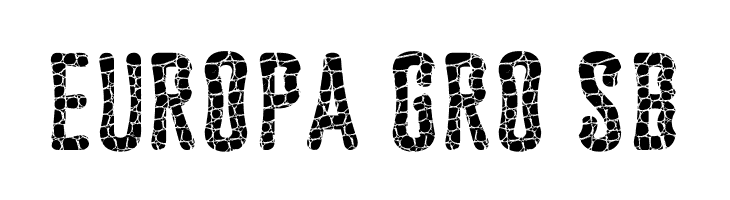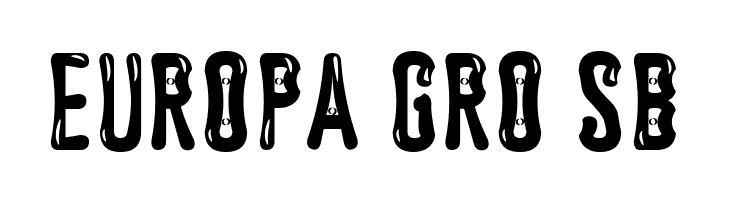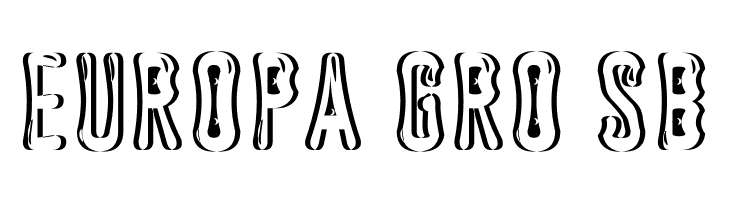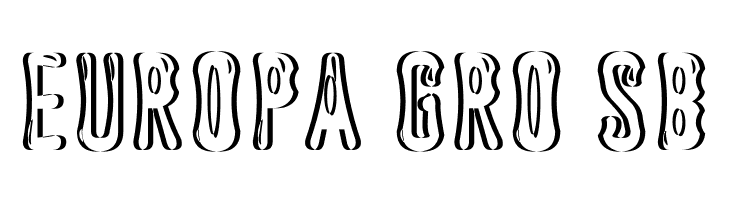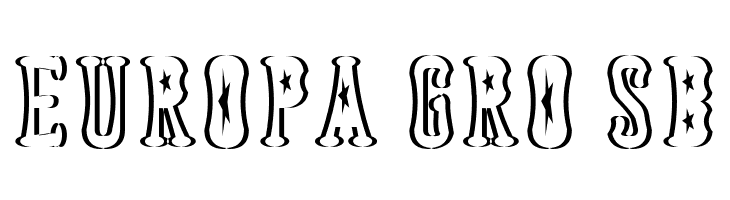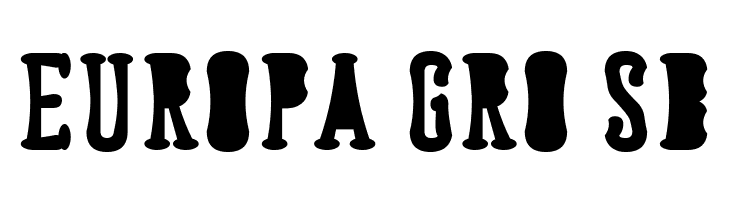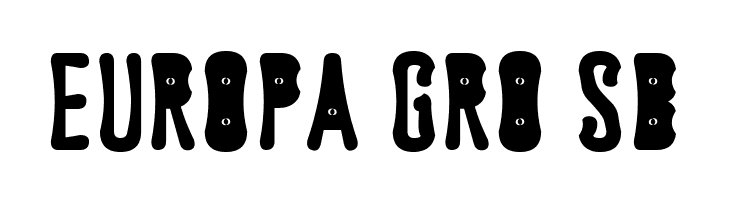
A bold, decorative serif font with a shadow effect for a three-dimensional look.
A bold, decorative serif font with a shadow effect for a vintage, three-dimensional look.
A bold, textured font with a cracked, organic design.
A bold, decorative font with fluid, wavy lines and high contrast strokes.
A bold, decorative font with a three-dimensional shadow effect.
A bold, decorative serif font with shadow effects and star cutouts.
A bold, decorative font with thick strokes and unique dished serifs.
A bold, decorative font with playful serifs and whimsical curves.
A playful, bold font with rounded, cartoonish characters.